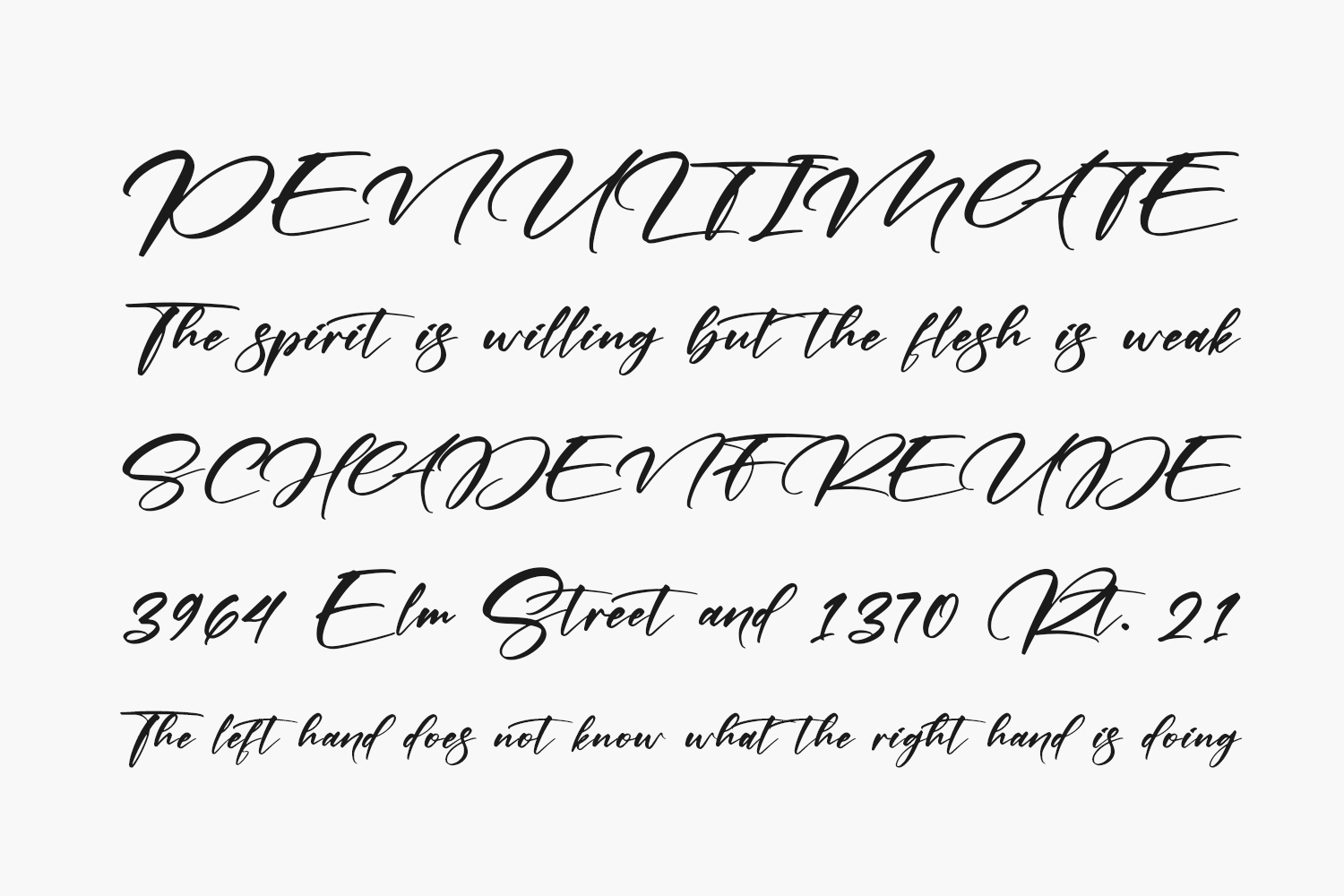
Bonbale Free Font is an exquisite script font tailored for diverse creative endeavors. Whether you’re working on logos, branding projects, homeware designs, product packaging, mugs, quotes, posters, shopping bags, t-shirts, book covers, or any other delightful project, Bonbale adds a touch of beauty to elevate your designs. Embrace the captivating essence of Bonbale for a tasteful and visually appealing result in all your creative ventures. Bonbale Free Font is free for personal use only. Please purchase the full version for commercial use.